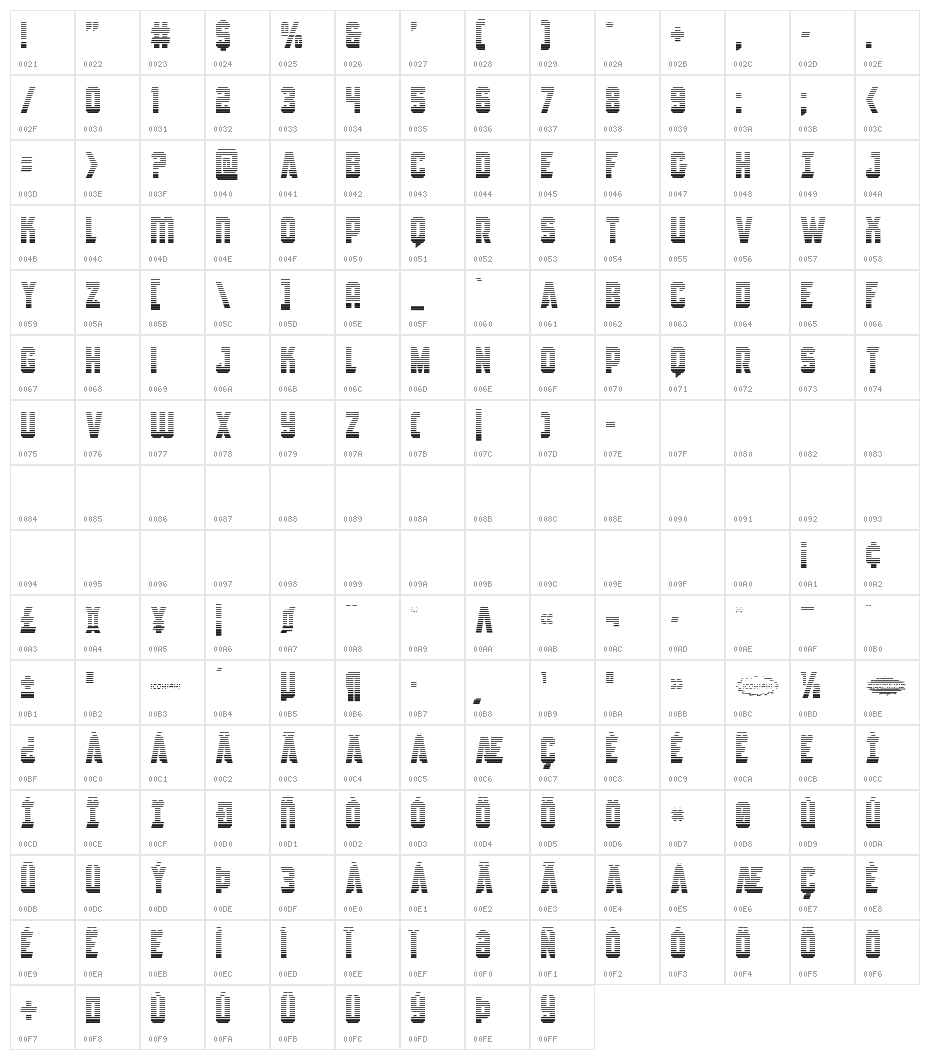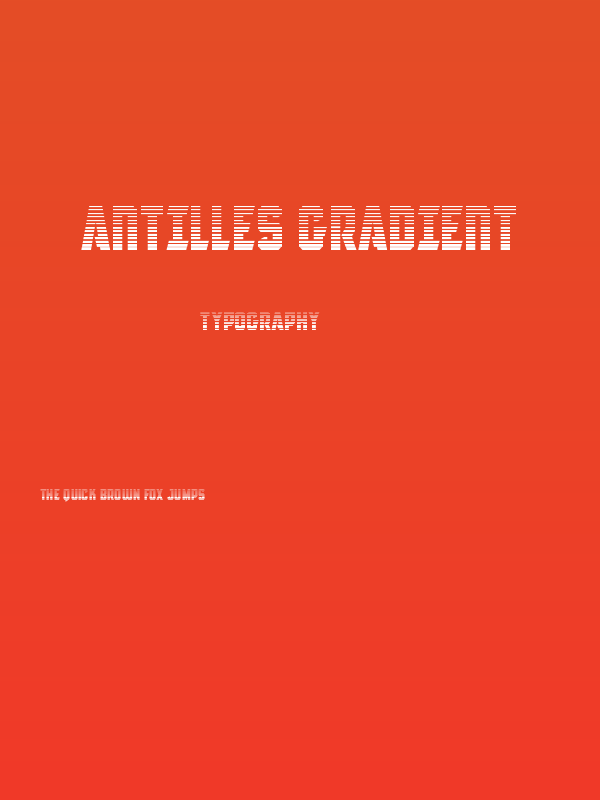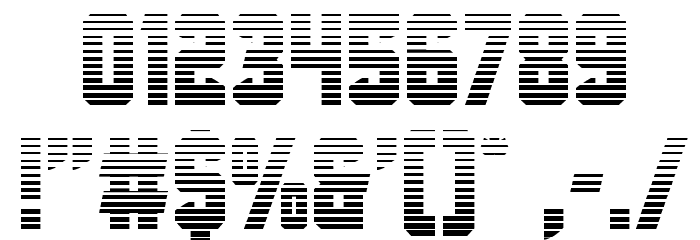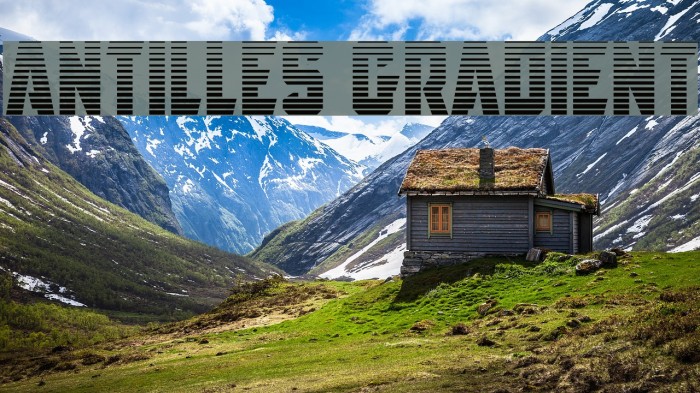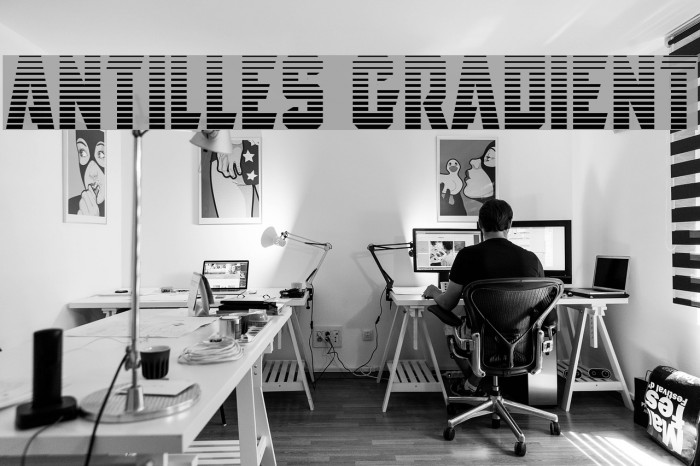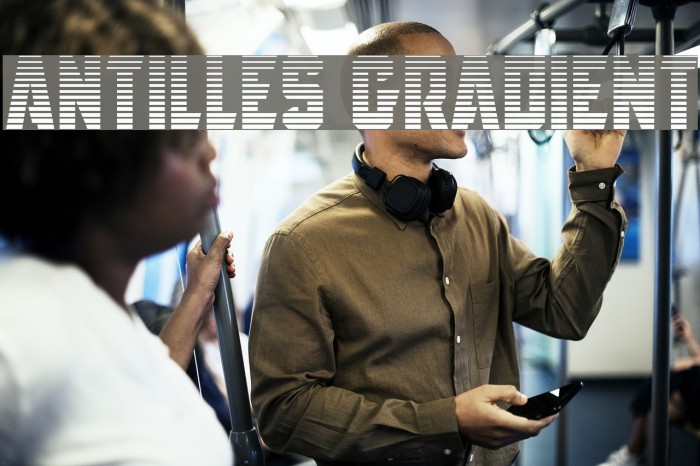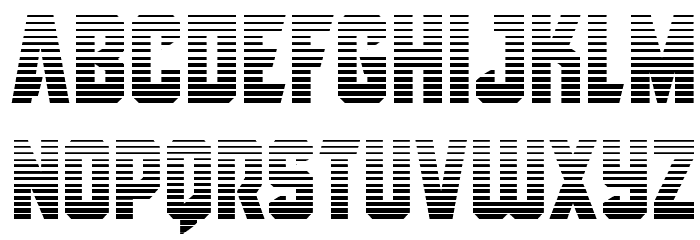
Antilles Gradient Font
Antilles Gradient Description
This font features a bold and striking design with a unique gradient effect created by horizontal lines that vary in thickness. The uppercase letters are crafted with sharp, angular edges, giving them a modern and futuristic appearance. The numbers and special characters maintain this consistent style, ensuring a cohesive look across all elements. The font's distinct line pattern adds a sense of movement and depth, making it ideal for eye-catching designs. Its boldness and geometric structure make it suitable for projects that require a strong visual impact.
| Proposed Projects | Ideal for posters, logos, headlines, and any design requiring a futuristic and bold aesthetic. |